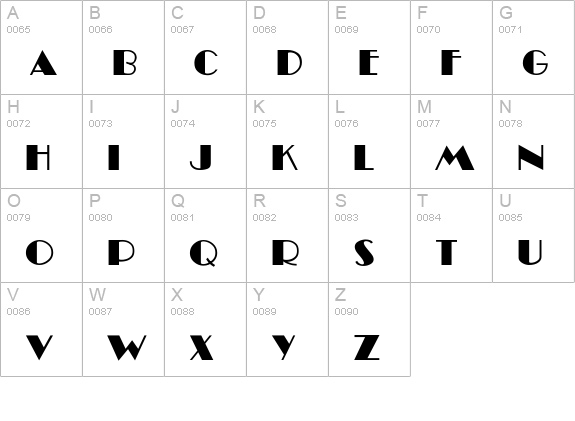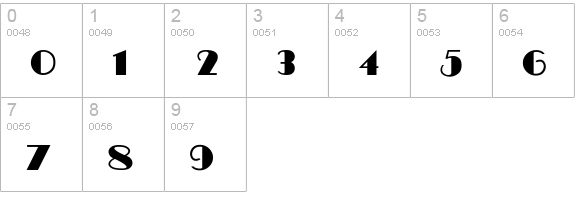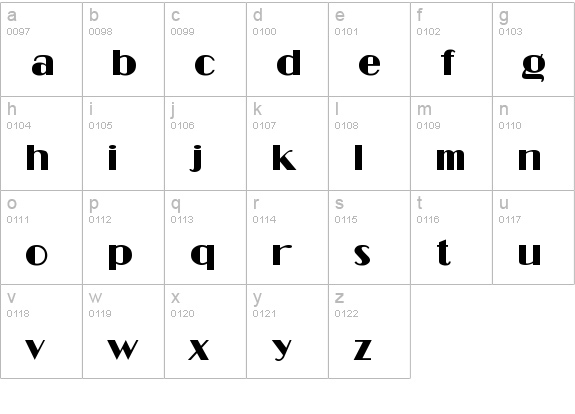
SouthBeache Font Details
SouthBeache is a modern and stylish font that exudes a sense of sophistication and elegance. With its clean lines and sleek curves, this font is perfect for adding a touch of refinement to any design project. Whether you are creating a logo, designing a website, or crafting a beautiful invitation, SouthBeache will effortlessly elevate your work to new heights. What sets SouthBeache apart from other fonts is not only its captivating aesthetics but also its accessibility. This remarkable font is freely available to download at FontsMarket.com, making it easily accessible to designers and creatives from all walks of life. No longer do you have to compromise on quality or style due to budget constraints, as SouthBeache allows you to bring your visions to life without any limitations. The versatility of SouthBeache is another reason why it has become a favorite among designers worldwide. It seamlessly blends with various design elements, making it suitable for both modern and traditional projects. Its legibility ensures that your message is conveyed effortlessly, no matter the size or medium of your design. Whether you are a professional designer or an aspiring artist, SouthBeache is a must-have in your font collection. Embrace the beauty and sophistication that this font brings to your designs, and watch as it captivates your audience's attention. With SouthBeache, you can create breathtaking designs that leave a lasting impression. Download SouthBeache for free at FontsMarket.com and embark on a creative journey where style knows no bounds. Let this font be the catalyst for your imagination, and unlock a world of possibilities in your design projects. Discover the power and elegance of SouthBeache today and elevate your designs to new heights.